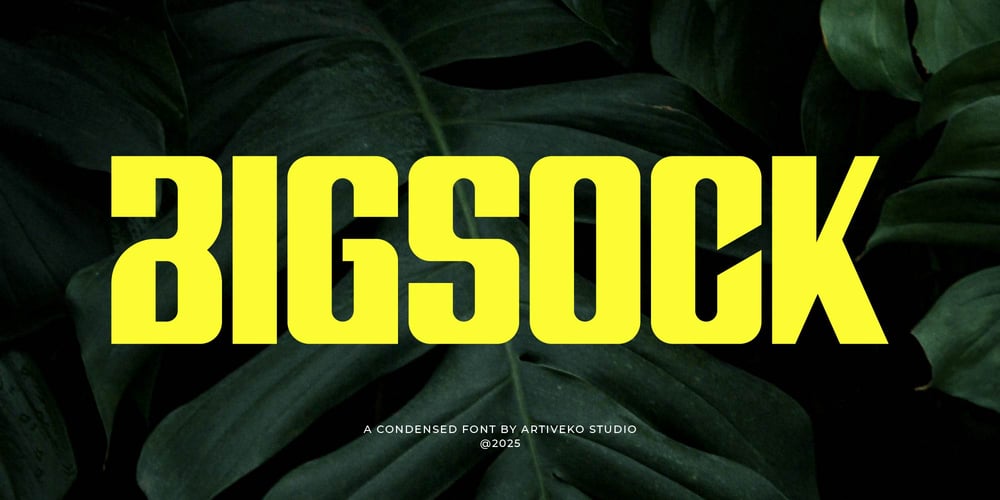
Bigsock Font Family was designed by Iwan Alwan and published by Artiveko. Bigsock contains 2 styles and family package options. Bigsock is a bold condensed display font designed to make a strong visual impact with its tall, striking letterforms. Perfect for posters, headlines, branding, and editorial designs, Bigsock delivers a modern and authoritative presence. With multilingual support, ligatures, and alternates, this versatile typeface ensures high readability and a dynamic look, making it ideal for projects that require boldness and style.